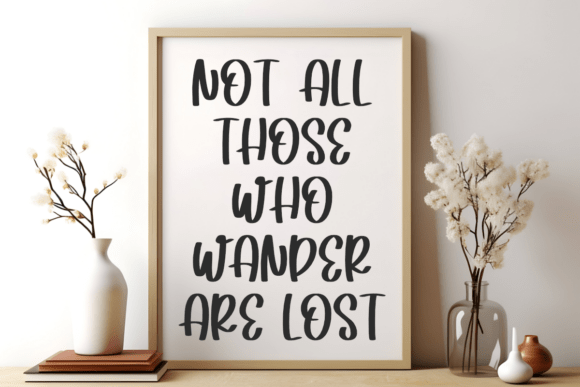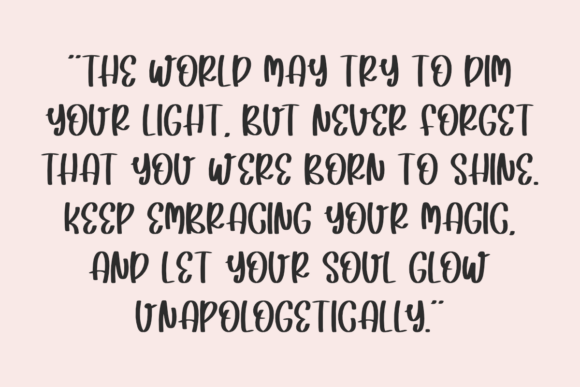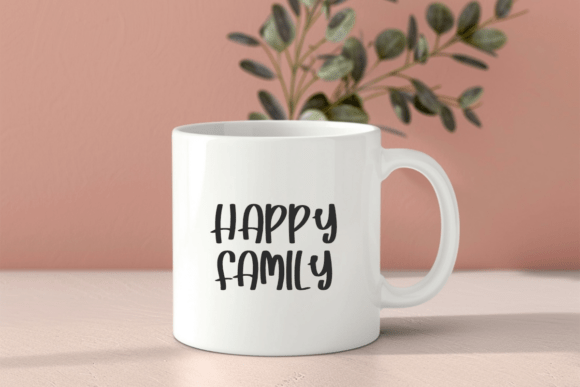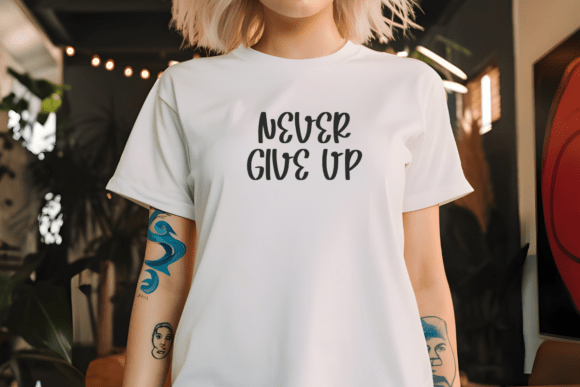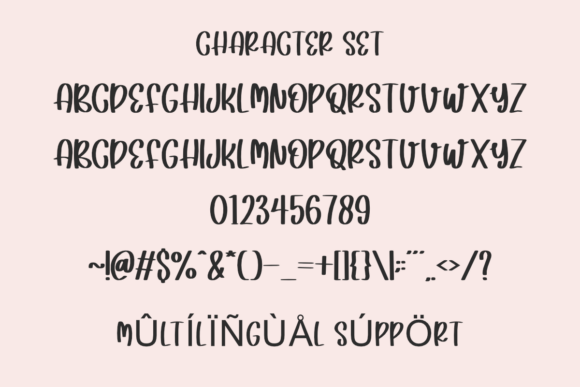
Introduction to Green Parade Font
As a designer, you’ve probably found yourself scrolling through Pinterest boards, pinning ideas for your next creative project. The perfect font can make all the difference, setting the tone for a cohesive and eye-catching visual identity. One font that’s caught our attention is the Green Parade Font, a stunning and expressive handwritten font that exudes eco-friendliness and charm.
Whether you’re working on a packaging design for a sustainable product or creating a poster for an environmental event, Green Parade Font is a valuable addition to your design resource arsenal. Its natural flow and bold form make it perfect for grabbing attention and conveying a message. With its free download option, you can experiment with this high-quality font and see how it elevates your creative project.
Key Features of Green Parade Font
- High-quality design with a unique, playful style
- Transparent background, making it easy to combine with other design elements
- Includes a range of characters, including uppercase and lowercase letters, numbers, and punctuation marks
- Perfect for use in creative projects, such as logos, posters, and social media graphics, where a fun and eye-catching font is needed
Honest Review: Green Parade Font
As a designer, I’m always on the lookout for high-quality design resources to enhance my creative projects. Recently, I stumbled upon the Green Parade Font, and I’m excited to share my honest review with you.
What works well: ✨ The font’s unique design and playful vibe make it perfect for projects that need a bit of whimsy. The transparent background is a great feature, allowing for easy layering and manipulation in design software. The high-quality download is also a bonus, ensuring that the font looks crisp and clear even at larger sizes.
- Unique and playful design
- High-quality download
Overall impression: I’m impressed with the Green Parade Font’s creativity and versatility. It’s a great addition to any designer’s toolbox, and I’m excited to see how it can be used in various design projects. Whether you’re working on a commercial project or just a personal creative project, the Green Parade Font is definitely worth checking out.
Tips for Getting the Most Out of Green Parade Font
To get the most out of Green Parade Font, use it on a transparent background to make your text stand out. You can also experiment with different font sizes and colors to create a visually appealing design.
Green Parade Font is ideal for creative projects, such as posters, flyers, and social media graphics. It’s also great for designing presentations, documents, and other materials where a high-quality, easy-to-read font is required.
Alternatives to Green Parade Font
Fontin is a high-quality, sans-serif font perfect for creative projects that require a modern and elegant look. It’s a free download and comes with a transparent background, making it ideal for designs where texture and background color are important. When to use: For designs that need a clean, minimalist aesthetic, such as business cards, posters, and brochures. Fontin compares to Green Parade Font in its modern feel and clean lines, but lacks the playful, whimsical touch of Green Parade Font.
Great Vibes is a fun, cursive font great for creative projects that need a touch of personality. It’s a free download and comes in a variety of weights and styles, making it easy to customize for different design needs. When to use: For designs that need a playful, handwritten feel, such as invitations, menus, and social media graphics. Great Vibes compares to Green Parade Font in its playful, whimsical touch, but lacks the modern, high-quality feel of Green Parade Font.
Yes, the Green Parade Font is designed with a transparent background, making it ideal for use on images with complex backgrounds or for creating striking visual effects. This feature allows you to easily customize the font to fit your design needs.